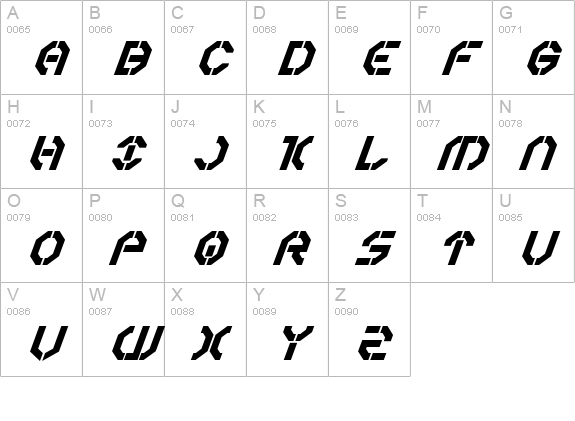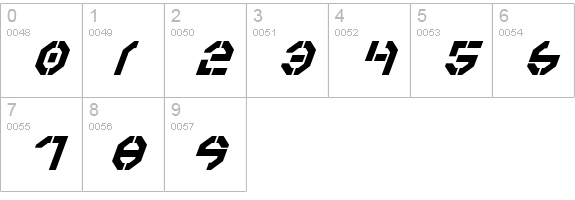
Year 3000Bold Italic is a strong, high-contrast, italic variant in the Year typeface family \xE2\x80\x94 well suited to headlines, attention-grabbing titles, and strong calls-to-action.
Year 3000Bold Italic font is a futuristic and cutting-edge typeface that embodies innovation and creativity. Its sleek and dynamic design exudes a sense of modernity and sophistication, making it perfect for projects that require a bold statement. The bold italic style adds a touch of flair and uniqueness to any text, making it stand out from the crowd. This font is not only visually striking but also versatile, suitable for a wide range of design applications such as branding, advertising, packaging, and more. Its futuristic aesthetic makes it ideal for projects related to technology, science fiction, or any forward-thinking concept. And the best part? Year 3000Bold Italic font is available for free download at FontsMarket.com, allowing you to access this high-quality typeface without any cost. Don't miss out on the opportunity to enhance your designs with this bold and futuristic font today!